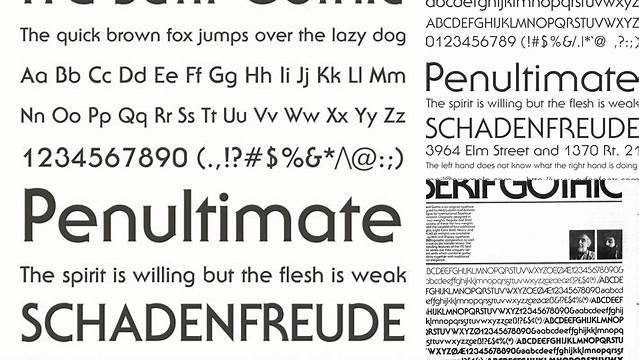
ITC Serif Gothic Font: Uses, Pairings & Design Examples
Understanding ITC Serif Gothic
When we talk about ITC Serif Gothic, guys, we're diving into a world of typography that’s both classic and contemporary. This font family, designed by Herb Lubalin and Tony DiSpigna in 1972, is a unique blend of serif and sans-serif characteristics. It’s like the cool kid in the font family who can hang out with both the traditional serif crowd and the modern sans-serif gang. The design is characterized by its clean lines, geometric shapes, and a certain warmth that many sans-serif fonts lack. It's this blend that makes it super versatile, fitting into a wide array of design projects.
Think about it – you've got the readability of a serif font with a dash of the sleekness of a sans-serif. This makes ITC Serif Gothic a fantastic choice for everything from body text in books and magazines to headlines and branding materials. The font's personality shines through in its slightly rounded terminals and the subtle variations in stroke weight, giving it a friendly, approachable feel. It's not stuffy or overly formal, but it's definitely got a touch of elegance. This versatility is key to its enduring popularity, so you'll find it popping up in all sorts of places, from corporate websites to indie film posters. Its unique structure allows for great legibility, even in longer texts, making it a practical choice as well as an aesthetic one. The font's inherent balance ensures that it doesn't fatigue the reader's eye, a crucial factor in maintaining engagement. Plus, the distinct character shapes make it easily recognizable, which is a big win for branding. Ultimately, ITC Serif Gothic’s success lies in its ability to bridge the gap between traditional and modern design sensibilities, offering a typeface that is both timeless and contemporary.
Key Characteristics of ITC Serif Gothic
Let's break down the key characteristics of ITC Serif Gothic. First off, its hybrid nature is a standout feature. It cleverly combines the best of both serif and sans-serif worlds, offering a unique visual appeal. The serifs are subtle, more like gentle suggestions than full-blown extensions, which gives the font a cleaner, more modern look compared to traditional serifs. The strokes have a consistent thickness, adding to its readability, and the rounded terminals soften the overall appearance, giving it a friendlier vibe. This makes it much more approachable than some of the colder, more geometric sans-serifs out there.
The letterforms themselves are quite distinctive. You’ll notice the wide, open counters (the enclosed or partially enclosed negative space in letters like 'o' and 'p') which contribute to its excellent legibility, especially at smaller sizes. The proportions are also carefully balanced, creating a harmonious rhythm across words and paragraphs. Think about the 'M' and 'W' – they’re wide but not overly so, maintaining the font’s overall balance. And the ascenders and descenders (the parts of the letters that extend above and below the main body) are moderate in length, which helps to keep lines of text nicely spaced and readable. Another important characteristic is its versatility in different weights. ITC Serif Gothic typically comes in a range of weights, from light to bold, allowing designers to create visual hierarchy and emphasis within their designs. This flexibility makes it ideal for a variety of applications, from body text to headlines, and from print to digital media. Furthermore, the font's clean and simple design makes it highly adaptable to different design styles and color palettes. It pairs well with both serif and sans-serif fonts, making it a versatile choice for typographic compositions. In summary, the key characteristics of ITC Serif Gothic – its hybrid nature, distinctive letterforms, balanced proportions, versatile weights, and adaptability – all contribute to its enduring popularity and widespread use in the design world.
Popular Uses of ITC Serif Gothic in Design
Alright, guys, let's talk about where you'll actually see ITC Serif Gothic in action. This font is a workhorse, showing up in a ton of different design scenarios. You might spot it in the pages of a sleek magazine, lending a touch of sophistication to the layout. Or maybe you’ll see it gracing the cover of a book, where its readability and elegance can really shine. It’s a go-to for editorial design because it holds up beautifully in long blocks of text, making it a solid choice for newspapers, journals, and even academic publications. Its clear, legible letterforms ensure that readers can easily engage with the content, without any visual fatigue. Beyond print, ITC Serif Gothic is a frequent flyer in the digital world. You'll often find it on websites, where its clean lines and balanced proportions make it easy on the eyes, even on screens of different sizes and resolutions.
It's especially popular for websites that want to convey a sense of professionalism and reliability, such as corporate sites or online publications. The font's inherent clarity makes it perfect for user interfaces, where readability is paramount. Consider how important font selection is in establishing brand identity; ITC Serif Gothic has proven its adaptability in branding projects as well. Companies use it in logos, marketing materials, and even in their overall brand guidelines to communicate a message of trustworthiness and elegance. Its subtle serifs and balanced form lend an air of sophistication that works well for brands aiming for a classic yet contemporary feel. Another area where this font excels is in advertising. Its ability to grab attention without being overly flashy makes it suitable for both print and digital ads. Whether it’s a headline in a newspaper ad or the body text on a website banner, ITC Serif Gothic delivers clarity and impact. The font's understated elegance ensures that the message is communicated effectively, without being overshadowed by the typography itself. In short, the popular uses of ITC Serif Gothic span a wide range of design applications, from print to digital, from editorial to branding, and from advertising to user interfaces. Its versatility and readability make it a reliable choice for designers seeking a typeface that combines elegance with functionality.
Examples of Brands and Projects Using ITC Serif Gothic
So, who’s actually using ITC Serif Gothic out there? You’d be surprised by the number of prominent brands and projects that have embraced this font. It’s like a secret weapon in the designer’s arsenal. Think about major publications – you might find it gracing the pages of a well-respected newspaper or a high-end magazine. Its presence lends an air of sophistication and readability that’s crucial for engaging readers. Major corporations, particularly those wanting to project an image of stability and trustworthiness, often incorporate ITC Serif Gothic into their branding materials. Its subtle elegance and clear legibility make it a safe yet stylish choice for logos, brochures, and websites.
Consider the financial sector, where trust and clarity are paramount; many firms in this industry opt for this font to communicate professionalism. In the world of publishing, ITC Serif Gothic frequently appears on book covers and within the pages of novels and non-fiction works. Its readability ensures that readers can immerse themselves in the text without any visual distractions. The font's versatility makes it suitable for a wide range of genres, from literary classics to contemporary thrillers. You might also spot it in the branding of high-end retail businesses. Boutiques, luxury goods stores, and upscale restaurants often use ITC Serif Gothic to convey a sense of elegance and sophistication. The font’s understated style complements the premium products and services they offer. Furthermore, it's a favorite among design agencies and studios that value a timeless aesthetic. Its adaptability allows it to seamlessly integrate into a variety of visual identities, adding a touch of class to any project. In the digital realm, numerous websites and online platforms use ITC Serif Gothic for both headings and body text. Its clear, legible letterforms ensure a smooth reading experience, which is essential for user engagement. The font's versatility also extends to mobile applications, where its readability on smaller screens is a significant advantage. Overall, the examples of brands and projects using ITC Serif Gothic span a diverse range of industries and applications. Its enduring popularity is a testament to its versatility, readability, and timeless appeal. From corporate branding to editorial design, this font continues to make its mark on the visual landscape.
Tips for Pairing ITC Serif Gothic with Other Fonts
Okay, let’s get into the nitty-gritty of pairing ITC Serif Gothic with other fonts. This is where the magic happens, guys. The right font pairing can elevate your design from good to amazing. Because ITC Serif Gothic is a hybrid font, it plays well with both serifs and sans-serifs, but there are a few tricks to keep in mind. First off, think about contrast. Pairing ITC Serif Gothic with a strong, classic serif font can create a sophisticated and traditional feel. Fonts like Times New Roman or Garamond, when used for headings, can provide a nice counterpoint to ITC Serif Gothic in the body text. This combination is perfect for projects that require a sense of authority and formality, such as academic publications or legal documents. On the other hand, if you’re aiming for a more modern and clean aesthetic, try pairing ITC Serif Gothic with a geometric sans-serif.
Fonts like Futura or Avenir can complement ITC Serif Gothic beautifully, creating a balanced and contemporary look. This pairing is ideal for websites, branding materials, and marketing collateral where you want to convey a sense of innovation and efficiency. When selecting a sans-serif pairing, consider the weight and width of the letters. A font with similar proportions to ITC Serif Gothic will often create a more harmonious visual experience. Another approach is to use different weights of ITC Serif Gothic itself. For example, you might use a bold weight for headings and a regular weight for body text. This creates visual hierarchy while maintaining a cohesive typographic style throughout your design. If you’re feeling adventurous, you can even pair ITC Serif Gothic with a more decorative font for headings or accents. However, it’s crucial to use this approach sparingly, as too many different fonts can create a cluttered and unprofessional look. Consider using a script font or a display typeface for a single, eye-catching element, and then let ITC Serif Gothic handle the rest of the text. Remember, the key to successful font pairing is balance and readability. Choose fonts that complement each other both visually and functionally, ensuring that your design is both aesthetically pleasing and easy to read. Experiment with different combinations, but always prioritize clarity and coherence in your typographic choices. By following these tips, you can create stunning designs that showcase the versatility and elegance of ITC Serif Gothic.
Another reason for its lasting popularity is its readability. The font's clear, well-defined letterforms and balanced proportions make it easy on the eyes, even in long blocks of text. This is crucial for any typeface intended for body text, and ITC Serif Gothic excels in this regard. Its legibility ensures that readers can focus on the content without being distracted by the typography. Furthermore, ITC Serif Gothic has a certain elegance that transcends trends. It doesn't feel overly trendy or dated, which means it can maintain its relevance for years to come. While some fonts come and go with changing design fads, ITC Serif Gothic has proven its staying power. This timeless quality makes it a smart choice for brands and projects that want to establish a lasting impression. The font also benefits from its association with Herb Lubalin, a legendary figure in the world of typography and graphic design. Lubalin's innovative and influential work has left an indelible mark on the design industry, and ITC Serif Gothic is one of his most iconic creations. This legacy adds to the font's prestige and desirability. In conclusion, the enduring appeal of ITC Serif Gothic stems from its versatility, readability, timelessness, and its association with a design legend. It's a font that has proven its worth over the decades, and it continues to be a favorite among designers seeking a typeface that combines elegance, functionality, and lasting style. So, the next time you see ITC Serif Gothic in use, you'll know you're looking at a true classic.